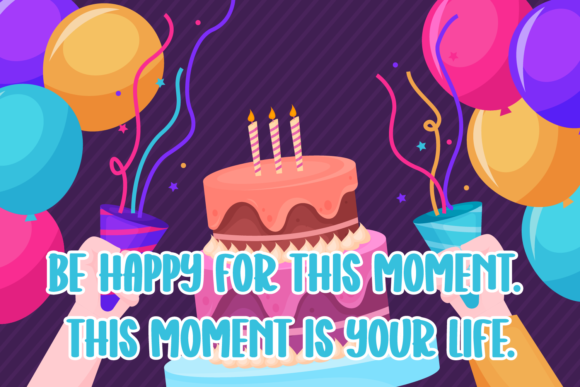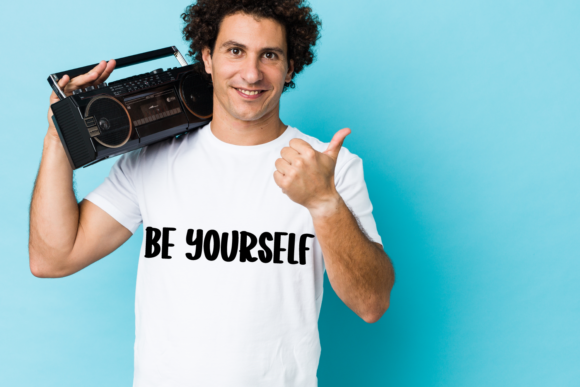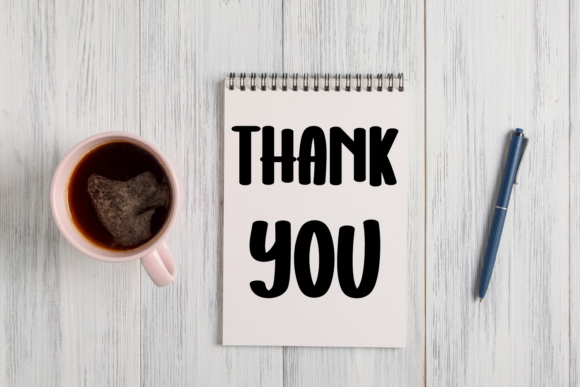
The Perfect Font to Celebrate Another Year of Life
Do you ever find yourself scrolling through social media, seeing birthday posts and wishing you had a more creative way to express your well-wishes? Maybe you’ve been tasked with designing a birthday card or party invitation, but can’t seem to find the right font to match the celebratory mood. I’ve been there too, which is why I’m excited to introduce you to the Best Birthday Font – a cute display font that’s guaranteed to add an incredibly joyful touch to your designs.
With the Best Birthday Font, you can instantly elevate your creative ideas and make them stand out. Whether you’re a professional designer or a DIY enthusiast, this font is a valuable addition to your toolkit. It’s perfect for birthdays, graduations, and any other celebratory occasion that calls for a fun and playful touch.
Key Features of “Best Birthday Font”
- Unique Characteristics: The font features bold, playful, and cursive lines, making it perfect for birthday invitations, party decorations, and other celebratory designs.
- Font Style: The font has a mix of serif and sans-serif elements, giving it a modern yet classic look.
Designer Review: Best Birthday Font
I recently had the chance to work with the “Best Birthday Font”, and I must say it’s an interesting choice for birthday-related designs. ✨ The font’s playful and cursive nature does make it suitable for informal birthday invitations and greeting cards. The variety of font weights and styles also provides ample options for designers to get creative.
One of the standout features of the “Best Birthday Font” is its versatility. It can be used for both digital and print media, making it a convenient choice for designers working on multi-platform projects. Additionally, the font’s compatibility with most design software is a major plus.
What Works Well: ✨
- Playful and cursive design suitable for informal birthday designs
- Variety of font weights and styles for creative freedom
- Versatility for both digital and print media
- Compatibility with most design software
- The font’s design may not be suitable for more formal birthday events or corporate designs
- The font’s readability may be affected in smaller font sizes
- Limited customization options for the font
Overall, the “Best Birthday Font” is a decent choice for designers working on birthday-related projects. While it has its limitations, it can be a great addition to a designer’s toolkit for more informal and playful designs.
The Best Birthday Font is ideal for:
- Birthday invitations and cards
- Party decorations and banners
- Photobook and scrapbook designs